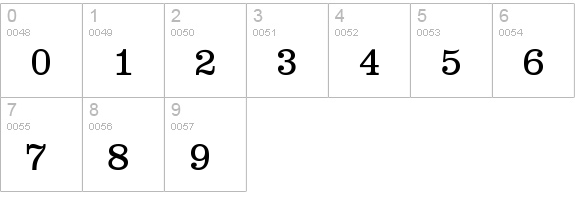
ClarendonEF-Light Font Details
ClarendonEF-Light is a refined, elegant variant in the ClarendonEF typeface family \xE2\x80\x94 well suited to elegant body text, refined sub-headings, and luxury branding.
ClarendonEF-Light is a classic and elegant font that exudes sophistication and timelessness. With its slim and refined letterforms, this font is perfect for adding a touch of understated elegance to any design project. The clean lines and balanced proportions of ClarendonEF-Light make it versatile and suitable for a wide range of applications, from branding to editorial design. What sets ClarendonEF-Light apart is that it is available for free download at FontsMarket.com. This means that you can easily access and use this beautiful font in your projects without any cost. Whether you're a professional designer or a hobbyist looking to elevate your creations, ClarendonEF-Light is a valuable addition to your font library. Don't miss out on the opportunity to enhance your designs with this stylish and sophisticated typeface, available for free at FontsMarket.com.